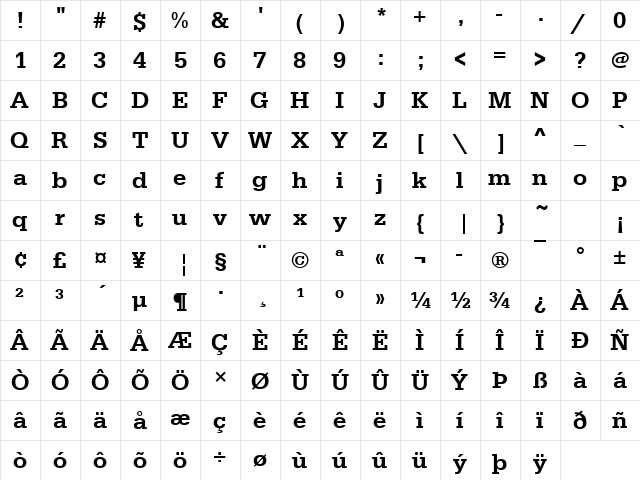
URWSarandibDMed Regular
Design Context for URWSarandibDMed Typeface
URWSarandibDMed takes a measured approach to typography — its balanced proportions and neutral character make it a reliable workhorse for both digital and print work.